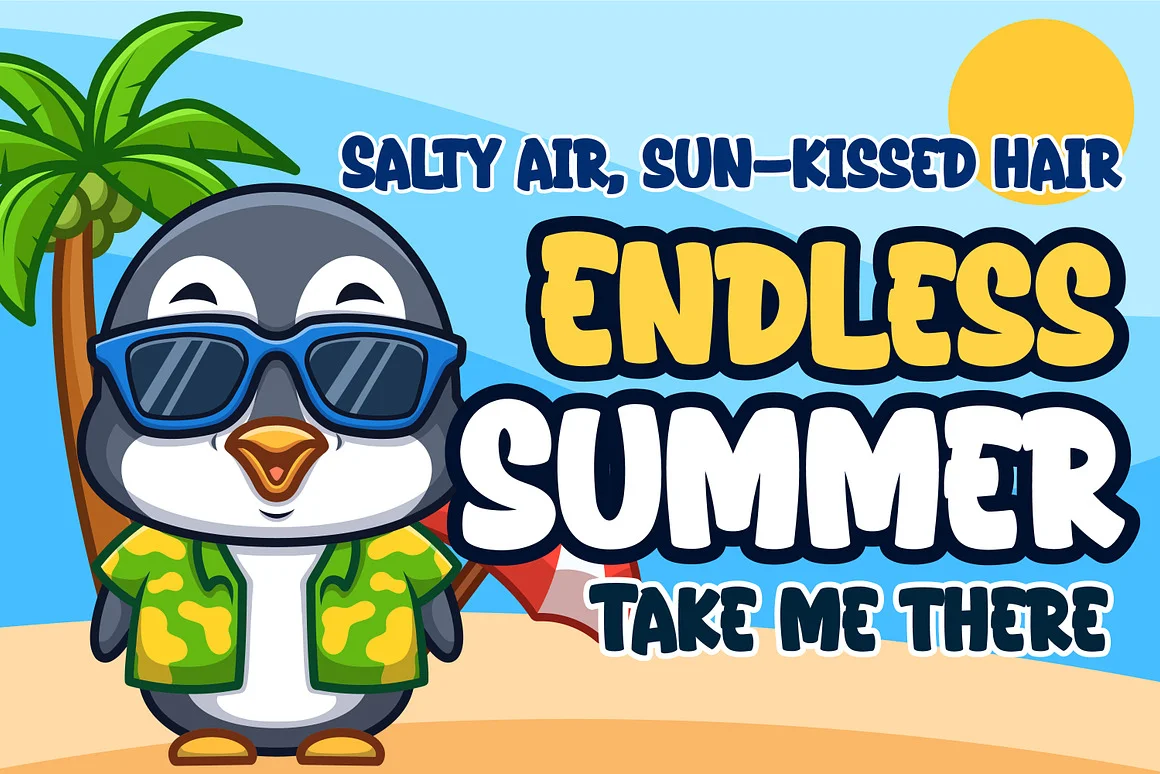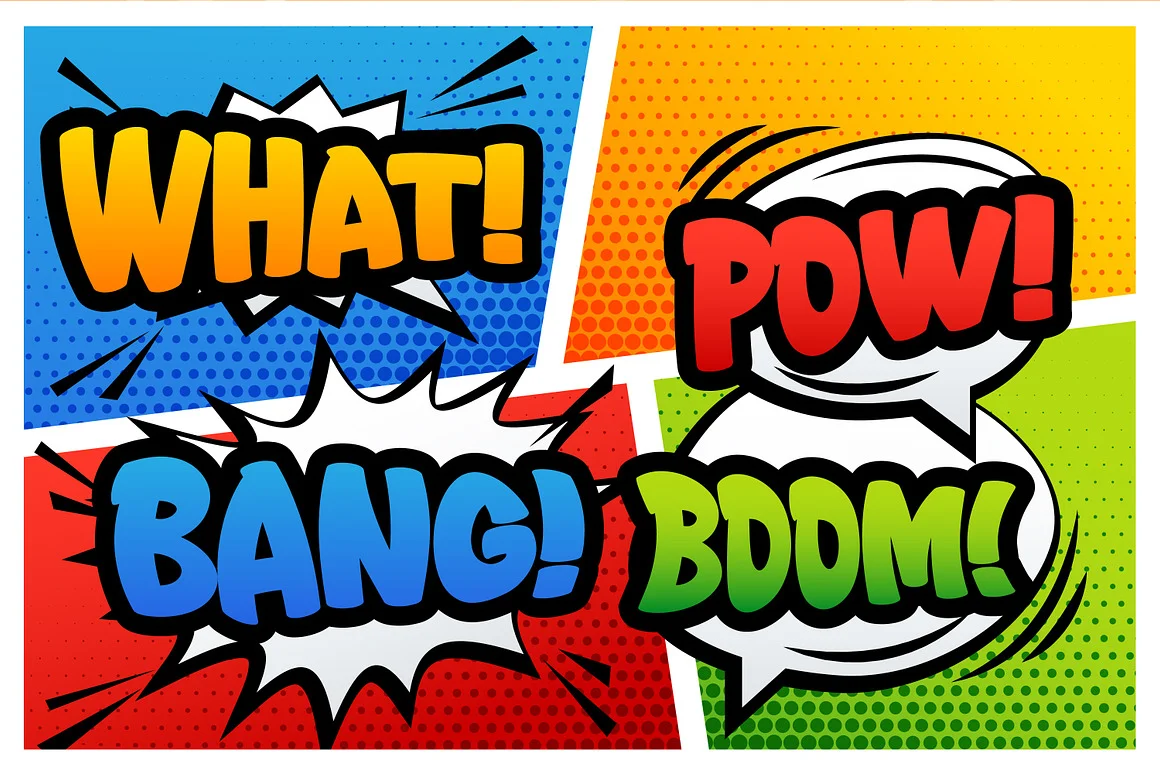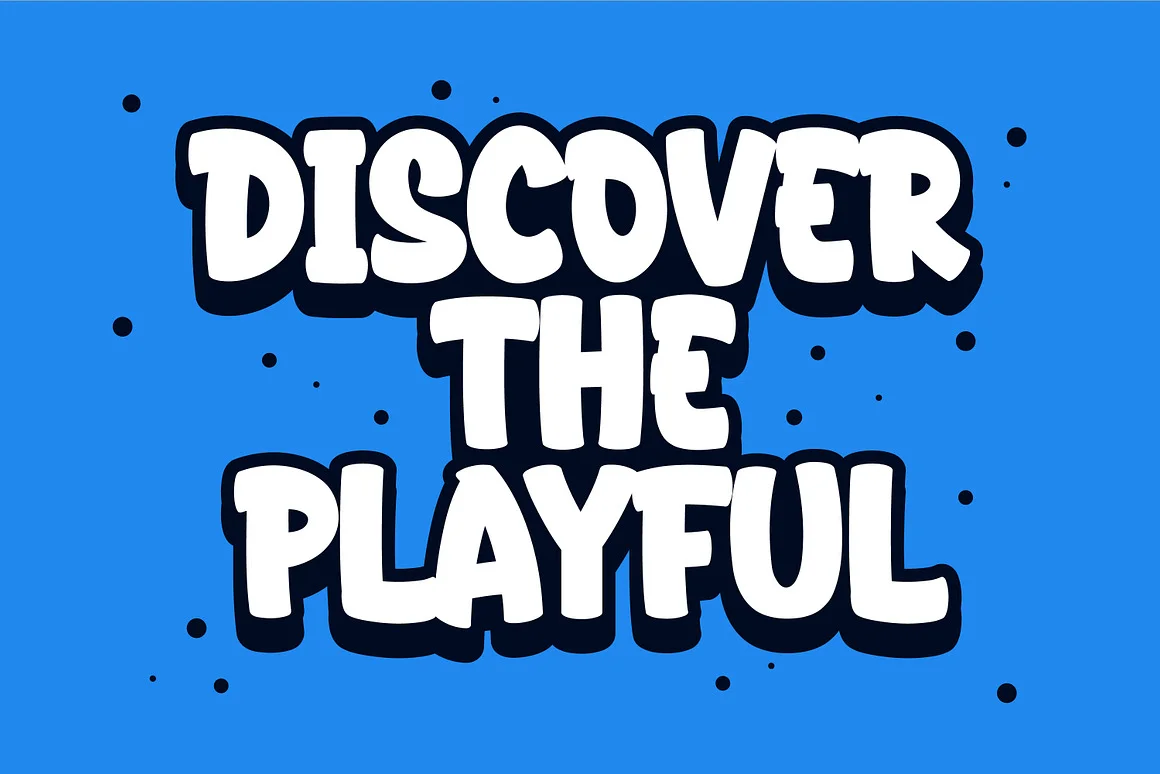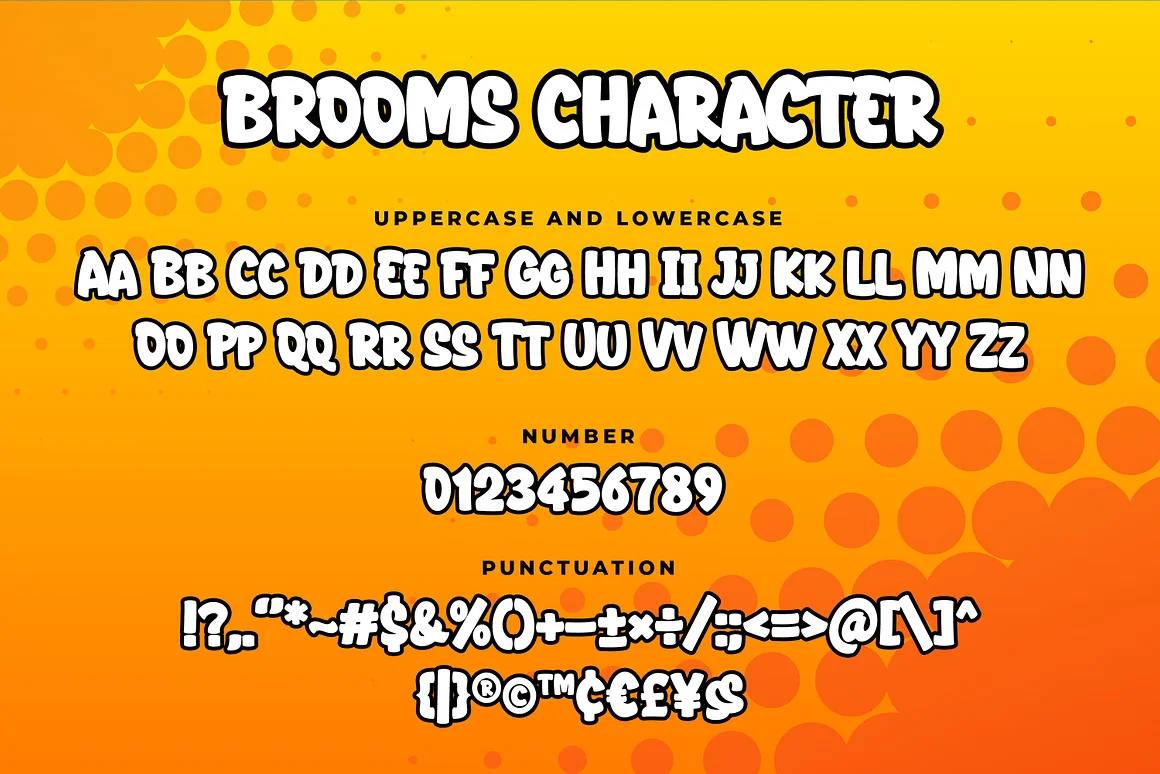
Brooms Playful Display Font
Introducing Brooms The ultimate playful display font that brings fun and energy to your designs! With its quirky shapes and bold personality, Brooms is perfect for projects that need a dash of excitement. Whether you're designing for kids' products, posters, packaging, or social media graphics, this font instantly grabs attention and makes a lasting impression.